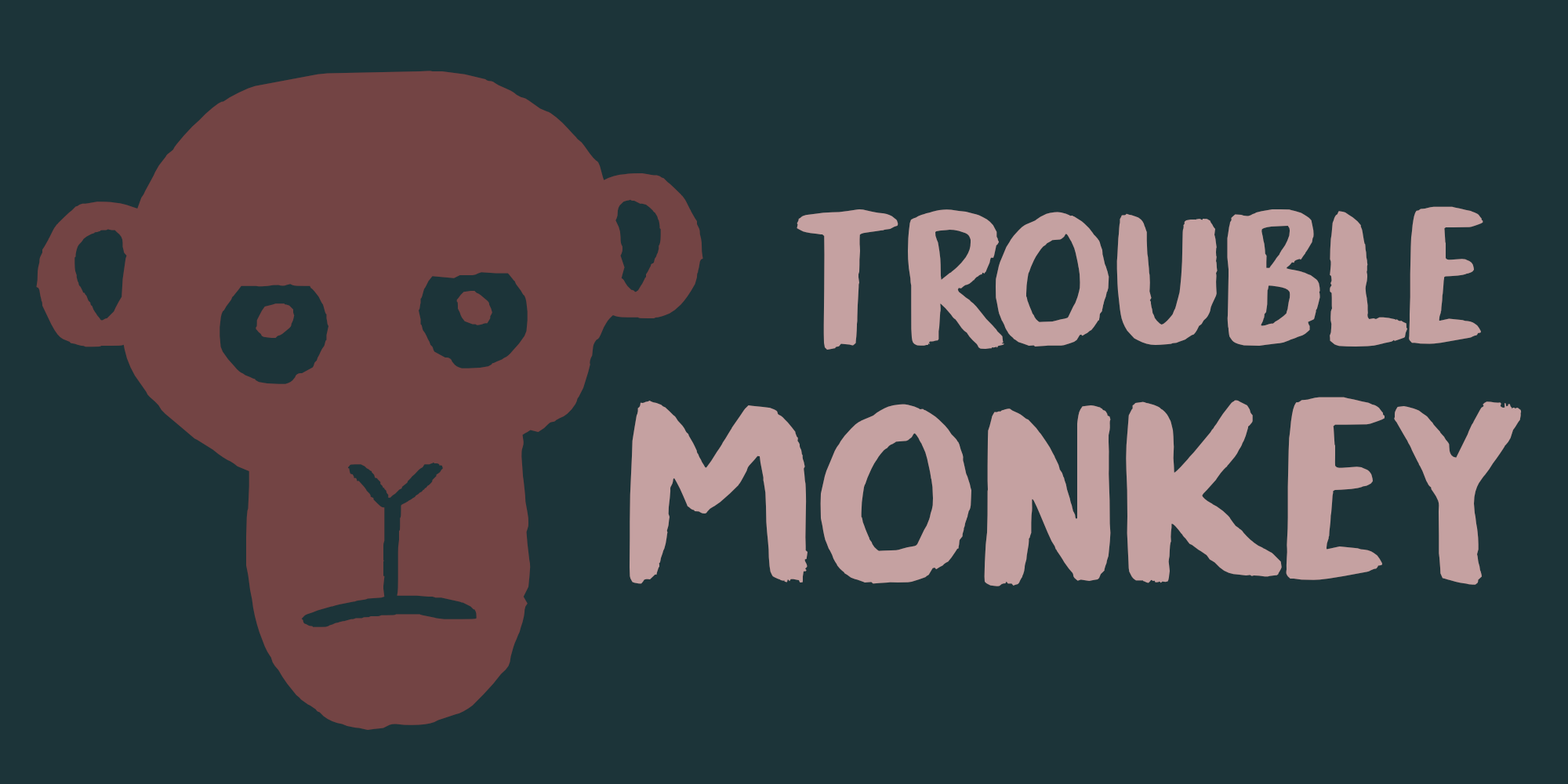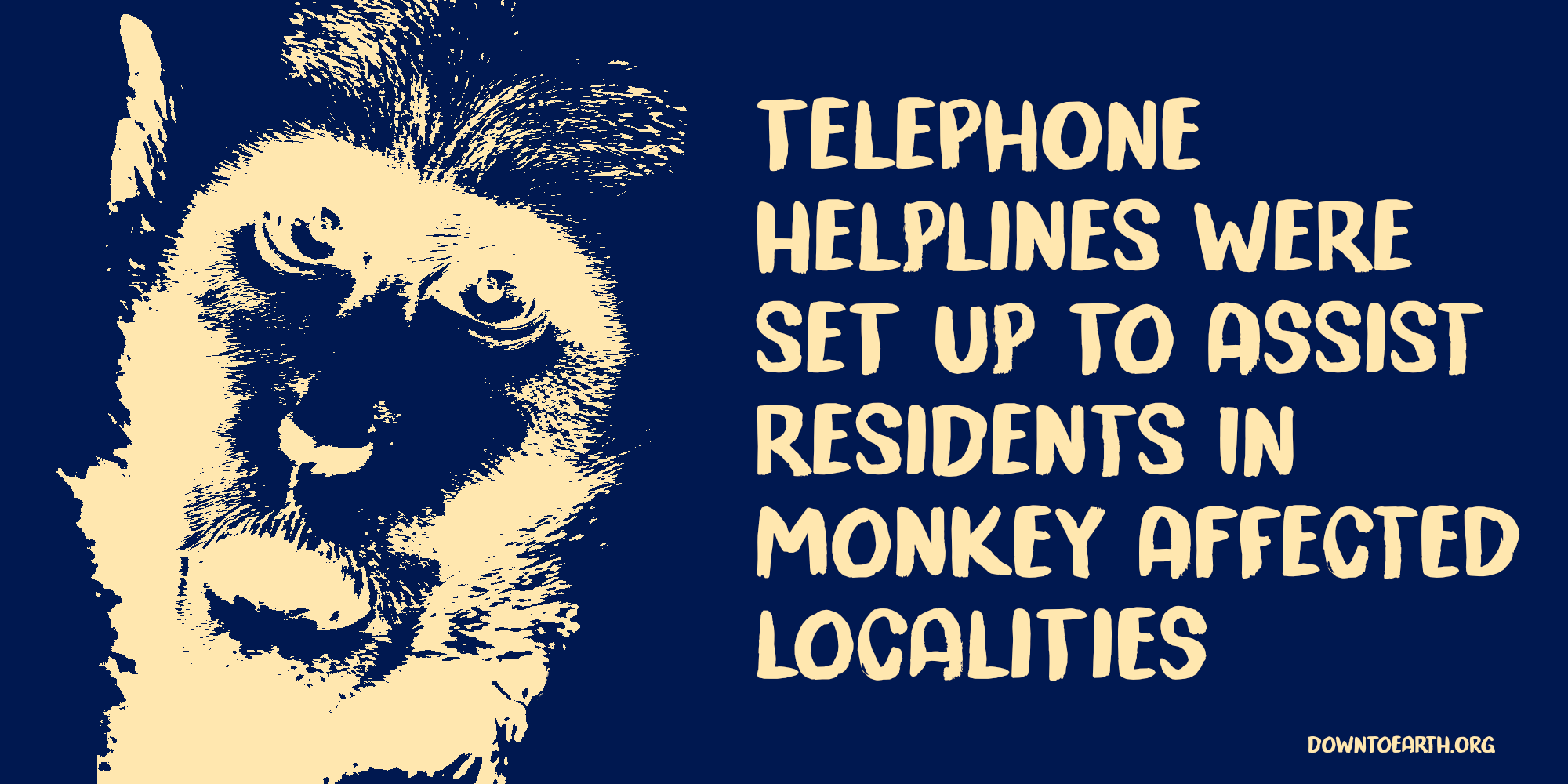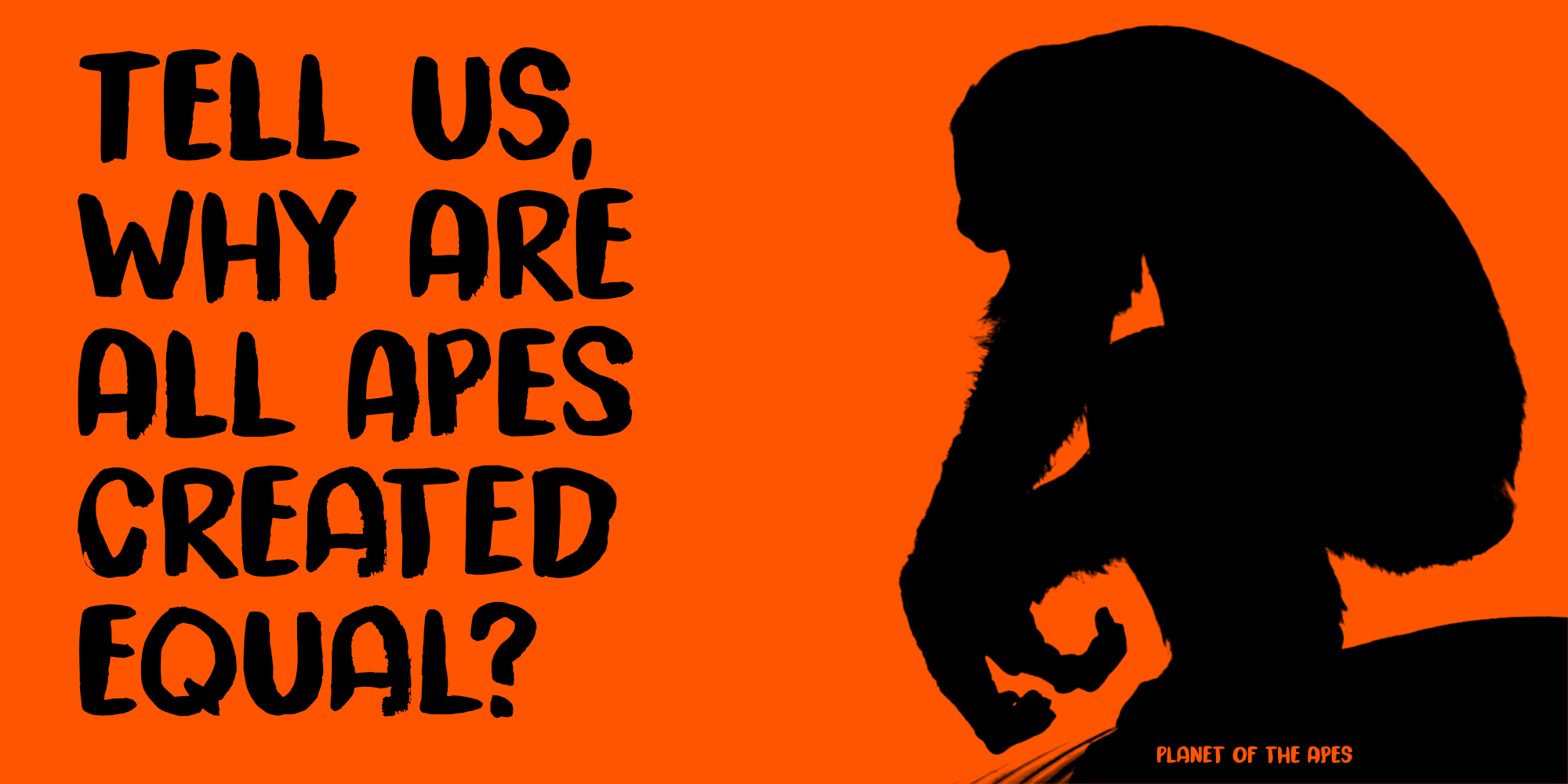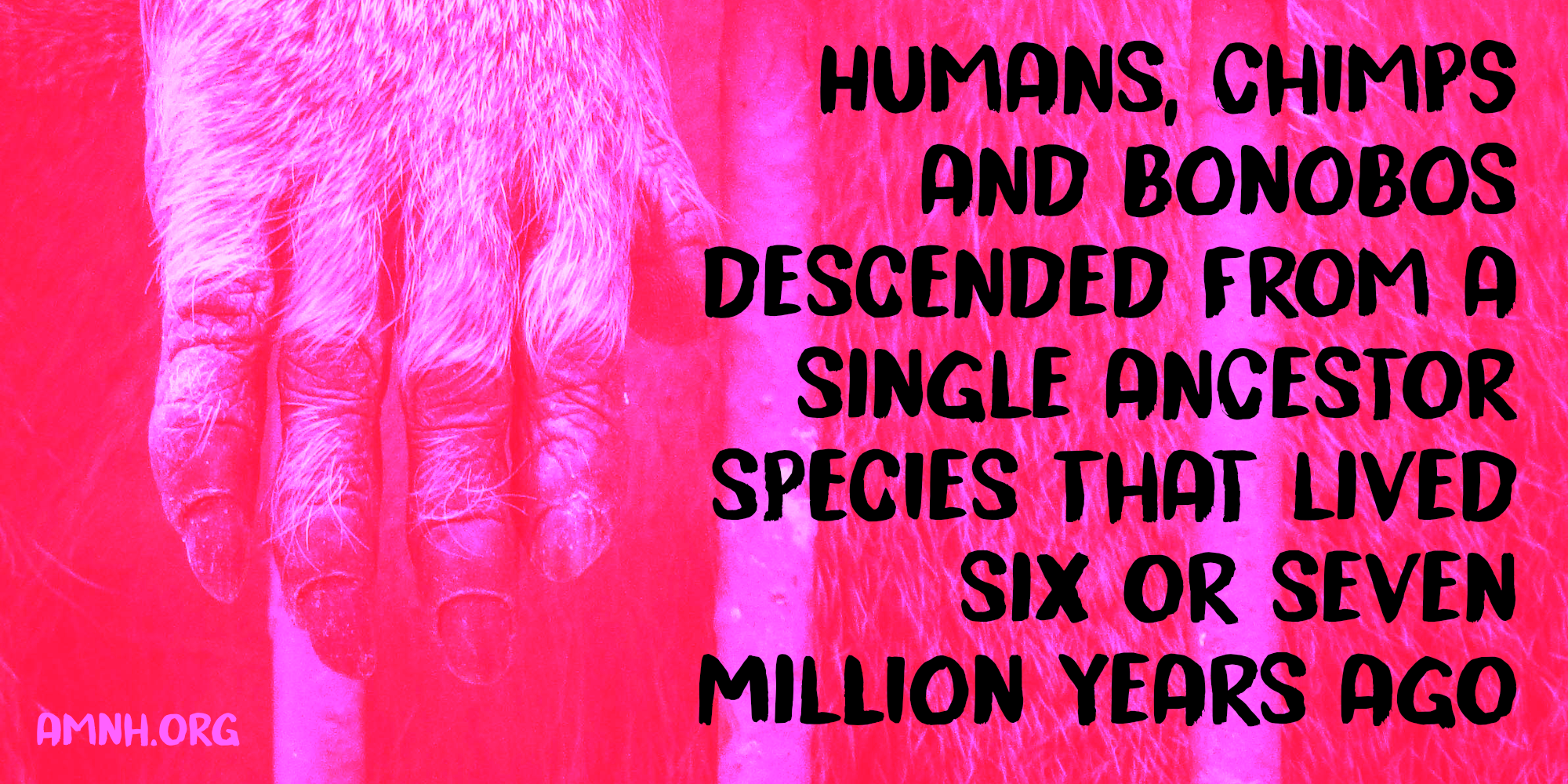
Trouble Monkey (2 fonts)
Trouble Monkey is an all caps headline font. It was made with a brush and Chinese ink and you can use it for everything that needs to catch people’s attention!